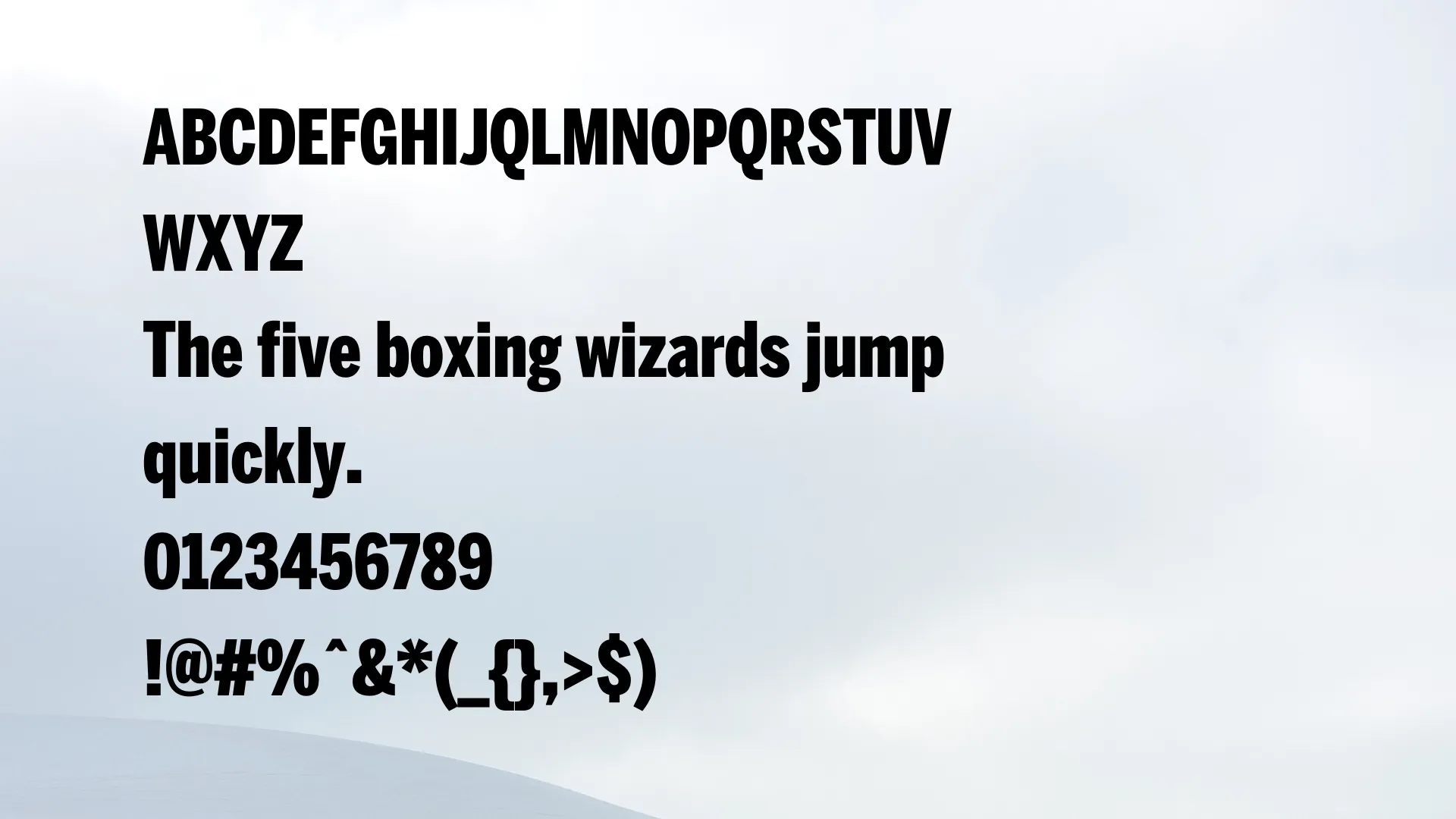
The Benton Sans Extra Comp Black Font is a sans-serif typeface that was created by an American typeface designer. It is one of the most popular and widely used sans-serif typefaces. The Benton Sans Extra Comp Black typeface has a unique design that makes it stand out from other sans-serif typefaces.
The font has a very modern look and feel. This typeface is perfect for any project that requires a sans-serif typeface.
The Benton Sans Extra Comp Black typeface is available in two different styles: Regular and Bold. The Regular style is the more popular of the two. The Bold style is perfect for headlines or for any project that requires a sans-serif typeface with a little more personality.
Creator of Benton Sans Extra Comp Black Font
This simple and lovely typeface is created by an American typeface designer Cyrus Highsmith for the foundry Occupant Fonts in 2013.
This font style is designed with a unique and regular style. This single attractive style is a combination of many different features, containing Capital alphabets, a Small alphabet, punctuations, glyphs, numbers, symbols, special characters, and several language support.
View of Benton Sans Extra Comp Black Font
| Name | Benton Sans Extra Comp Black Font |
| Designer | Cyrus Highsmith |
| Foundry | Occupant Fonts |
Is Benton Sans Extra Comp Black typeface a good font?
The Benton Sans Extra Comp Black typeface is a great font for any project that requires a sans-serif typeface. This typeface is good for headings and titles.